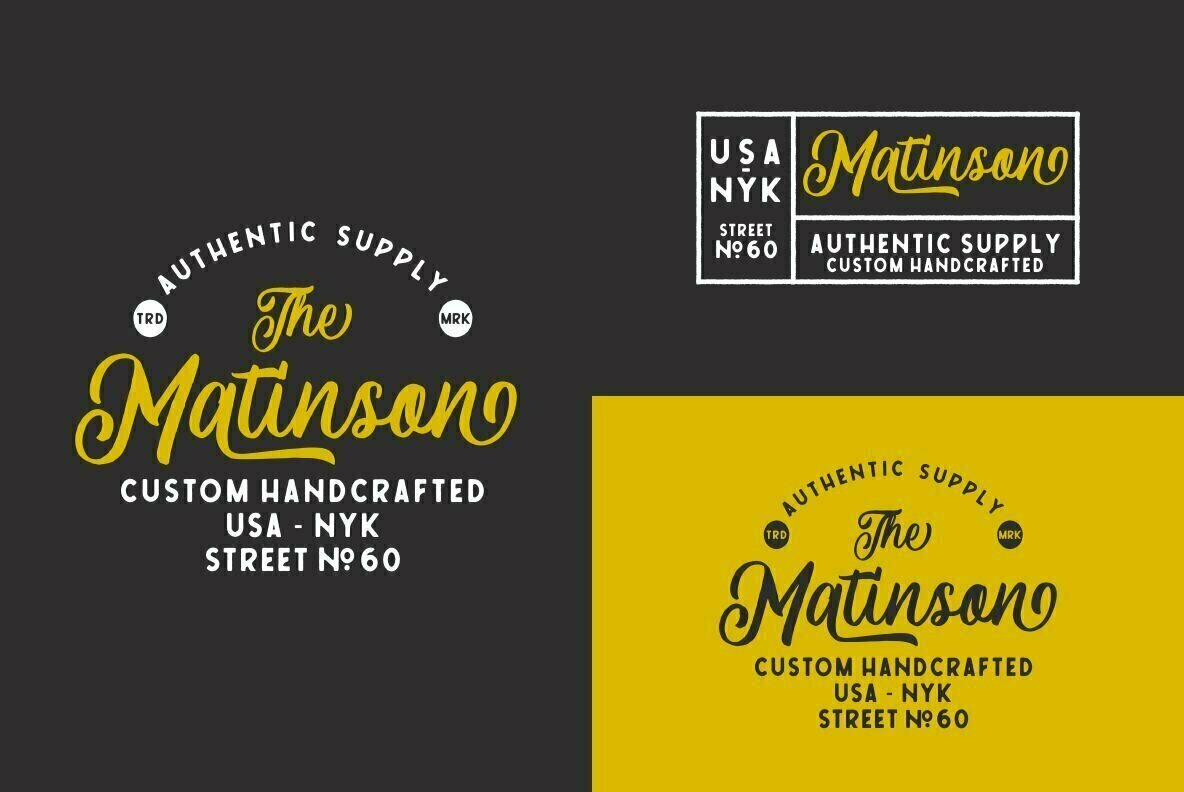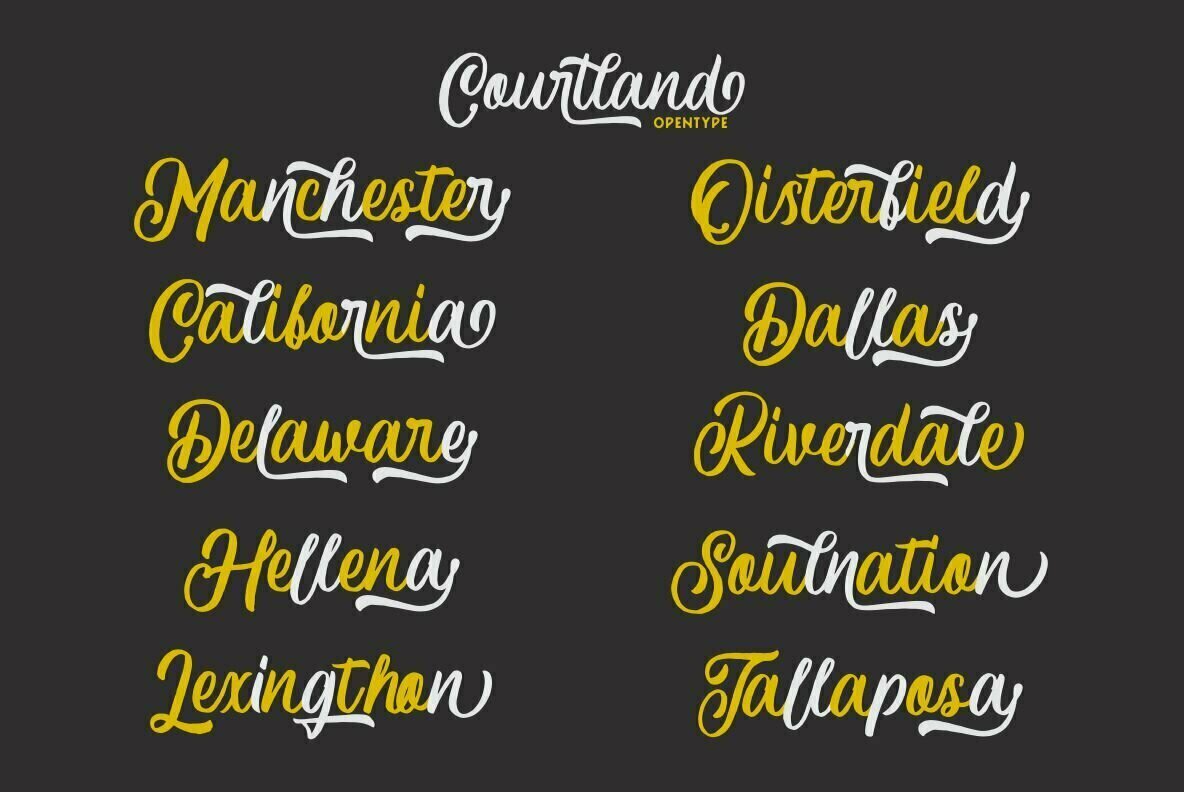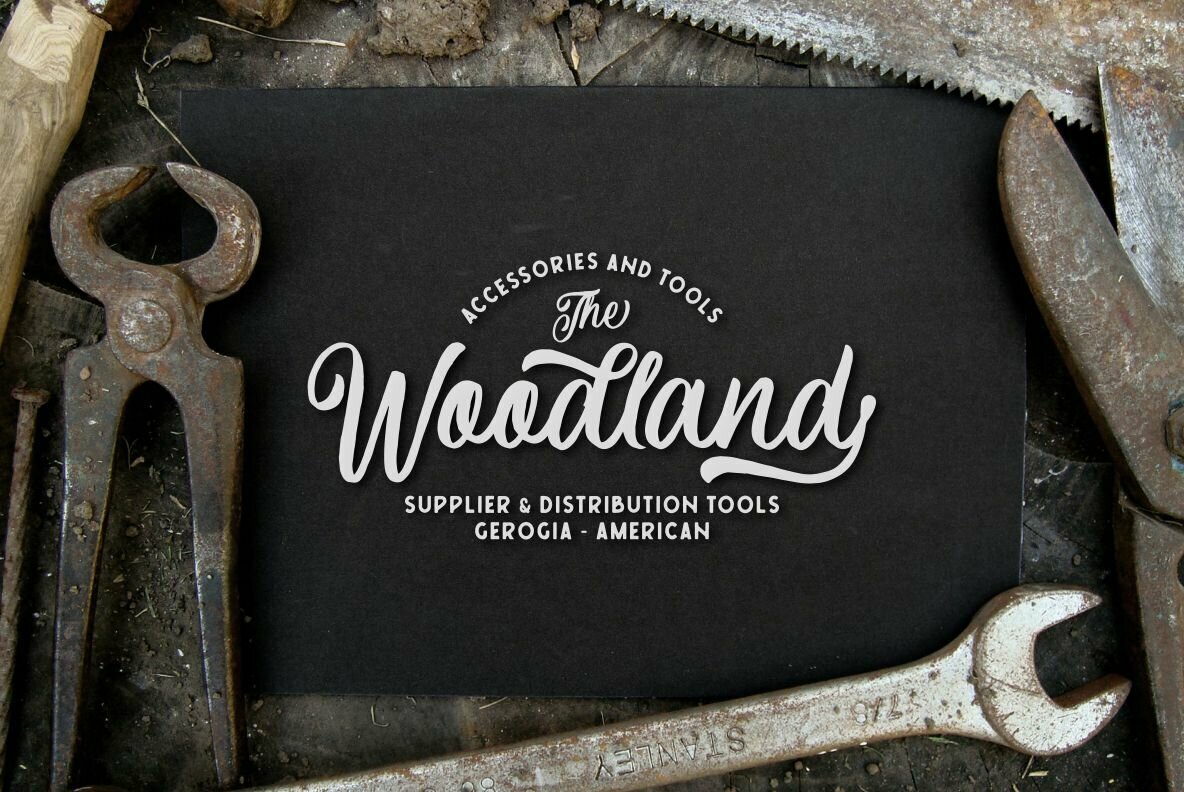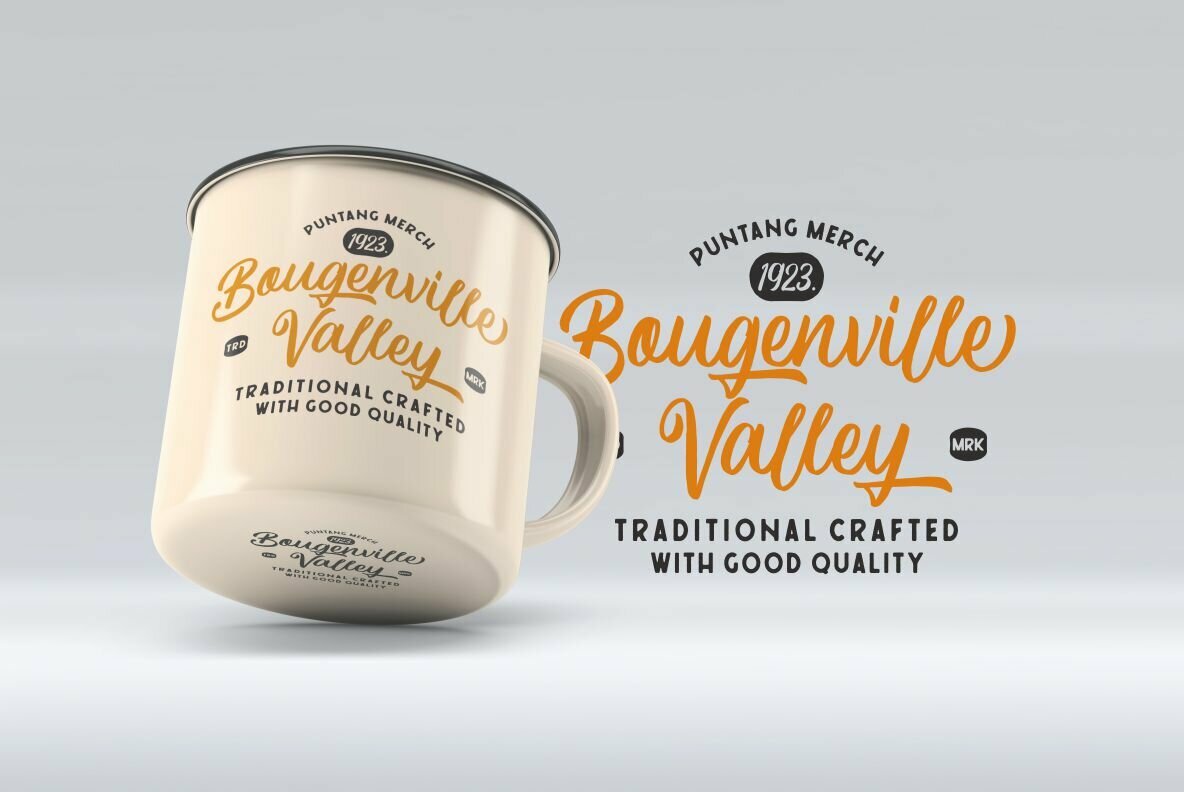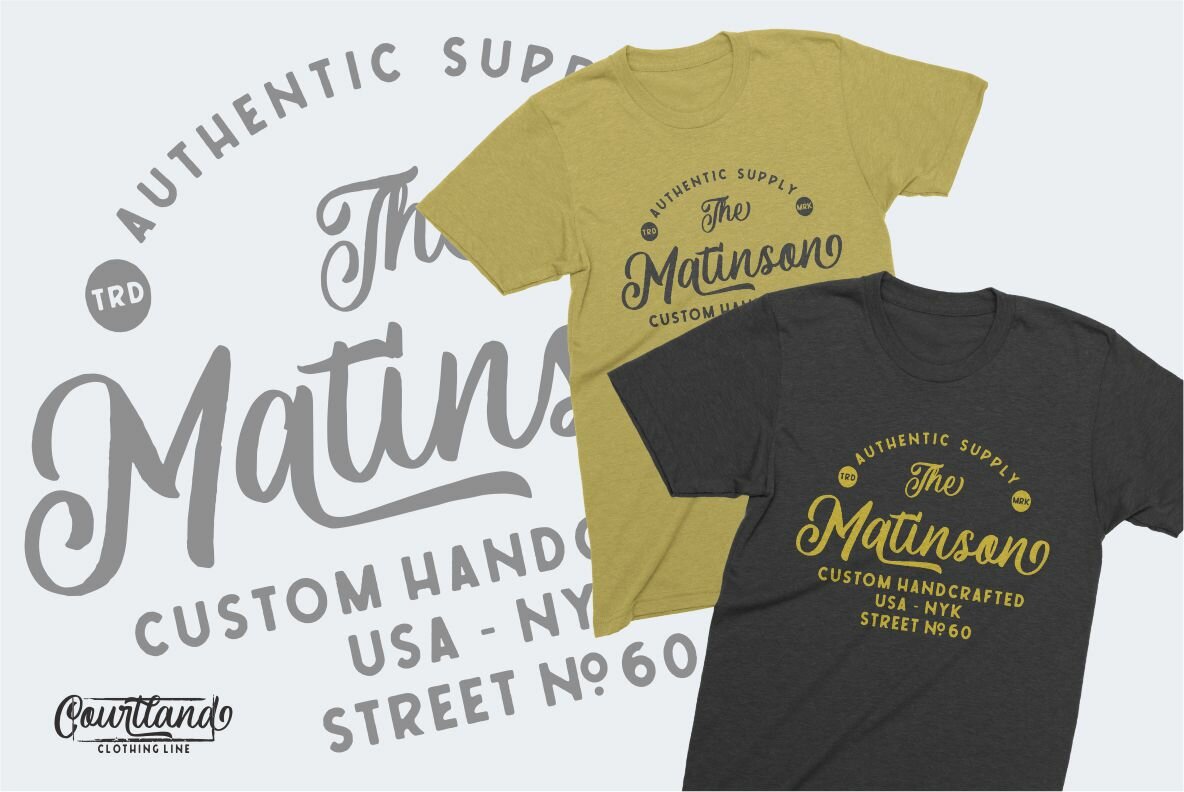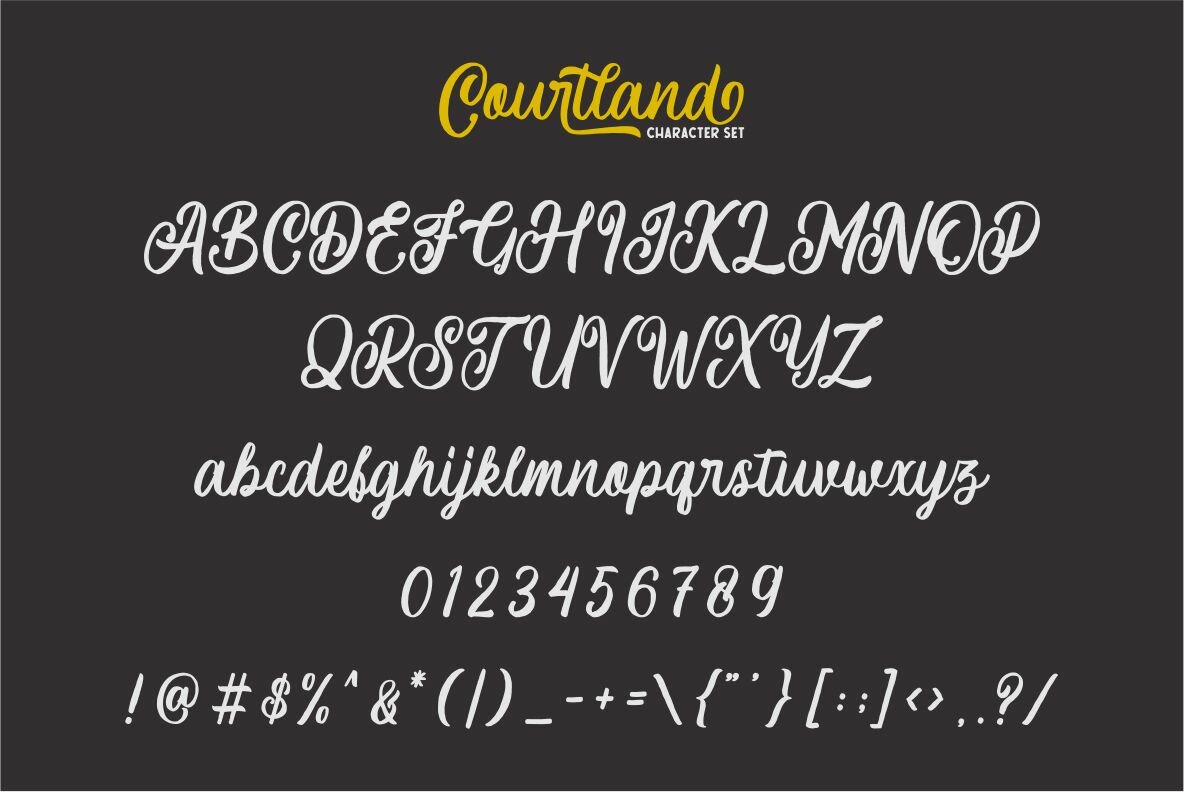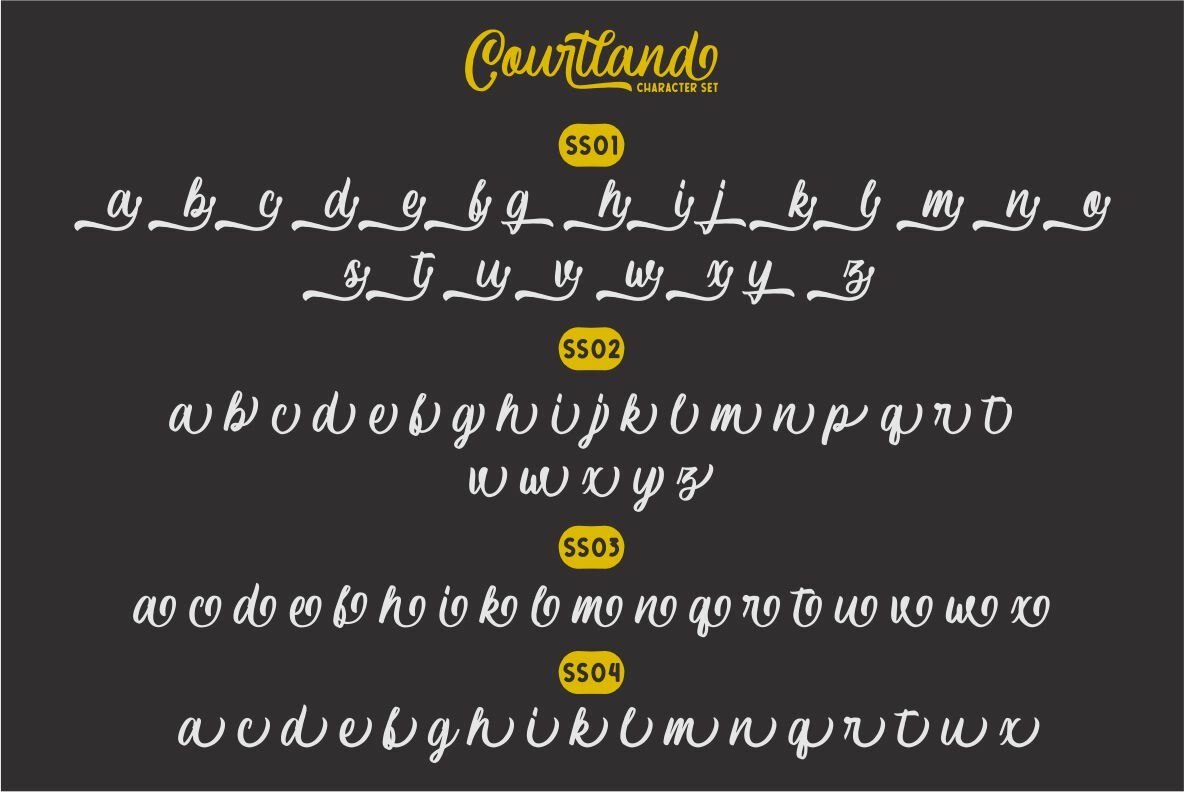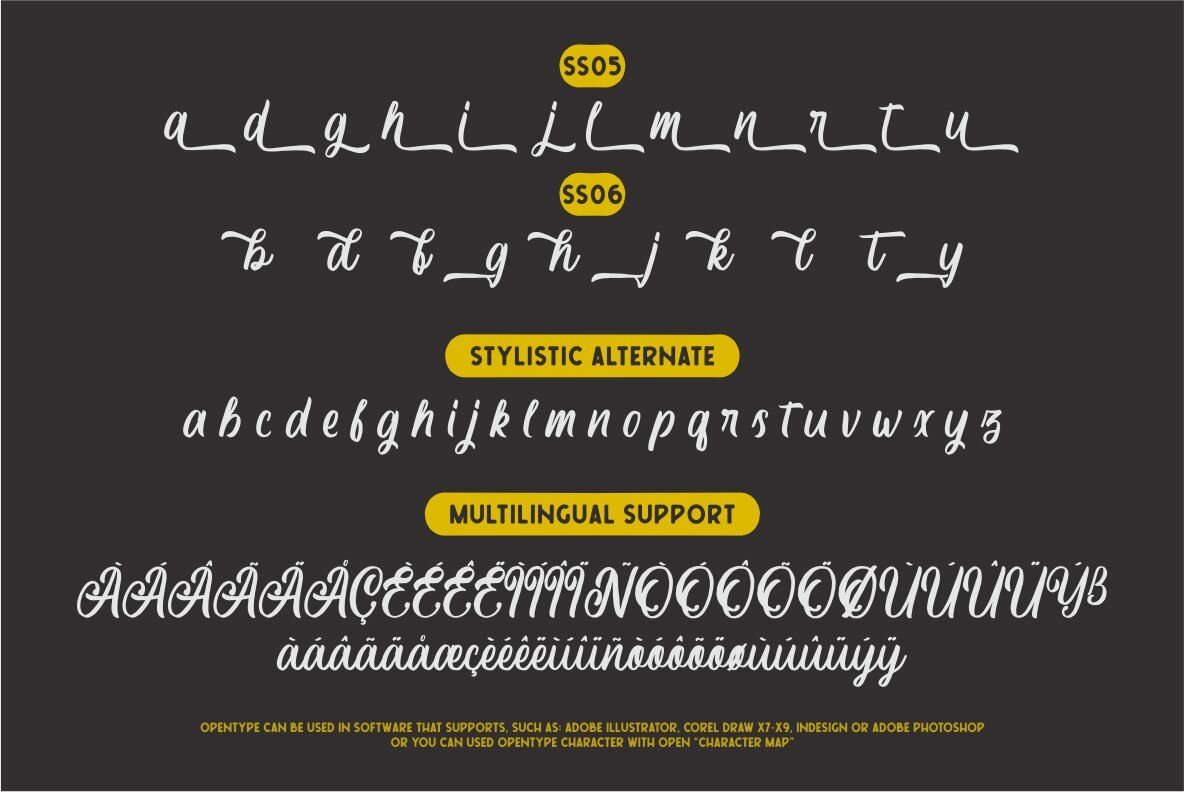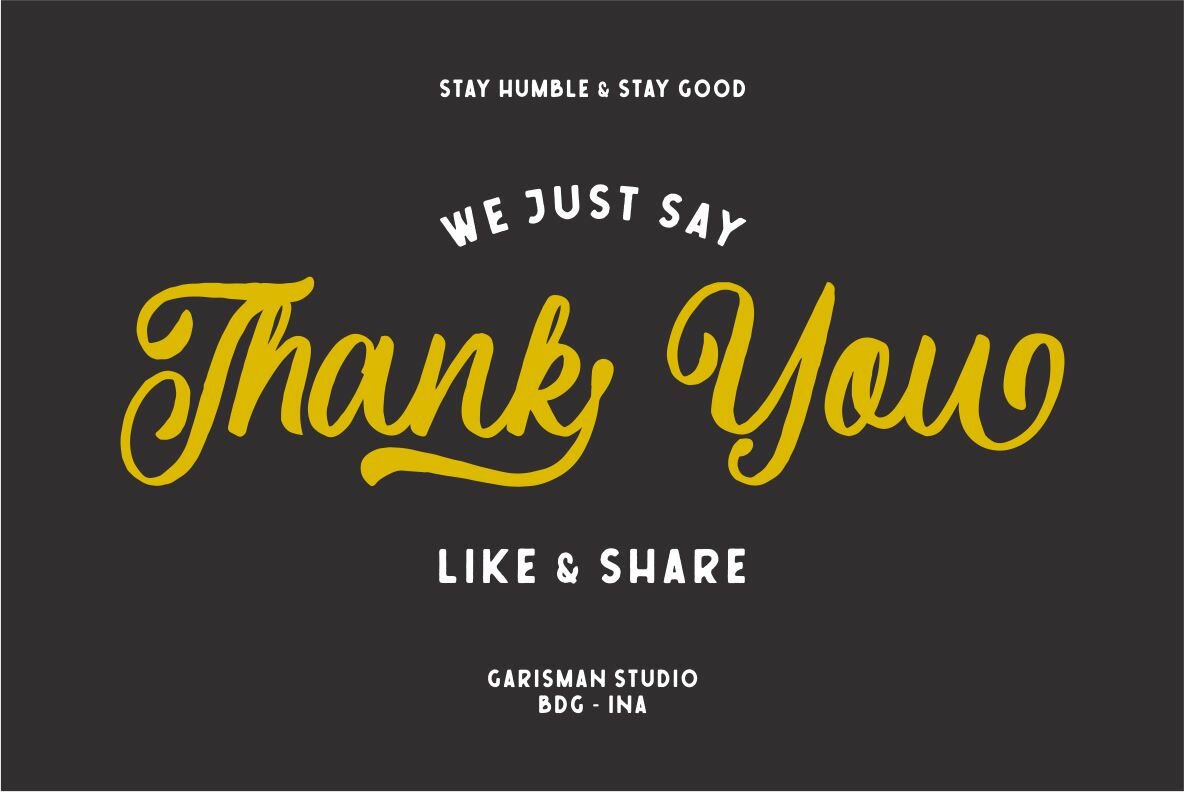
Courtland Font
Inspired by a name that traces its origins to Canada, the Courtland font gracefully embodies the essence of vintage typography. Courtland comes with a rich feature set including standard ligatures, stylistic alternates specifically designed for lowercase letters, and stylistic sets ranging from 01 to 06, each offering unique letter variations. This font is impeccably suited for creating logos, vintage-inspired designs, posters, labels, packaging, headlines, and even t-shirts.Courtland: A Vintage Typeface with Canadian Roots